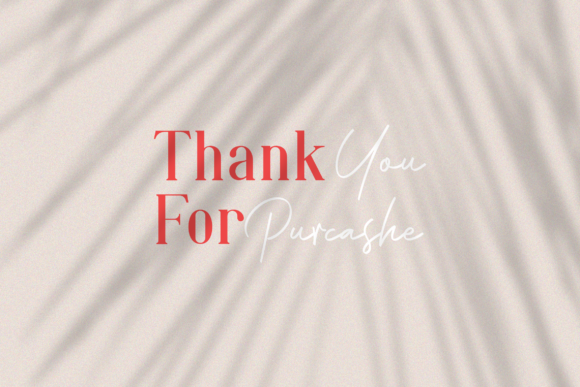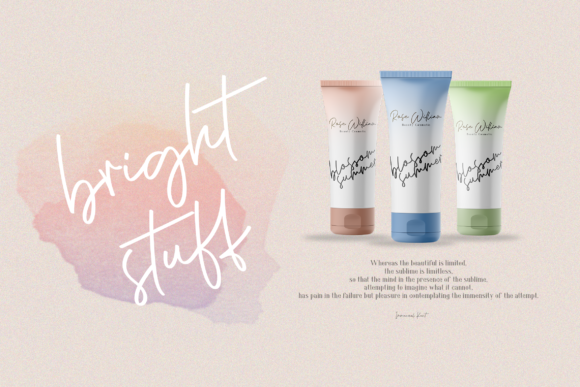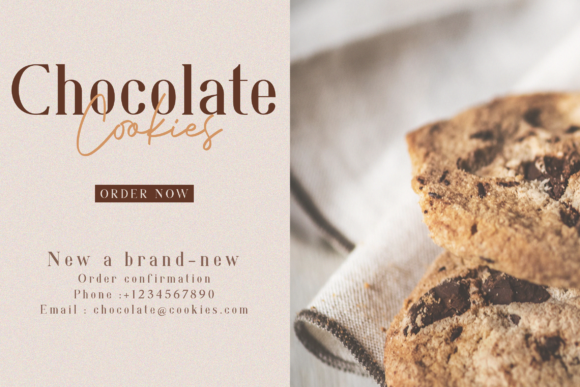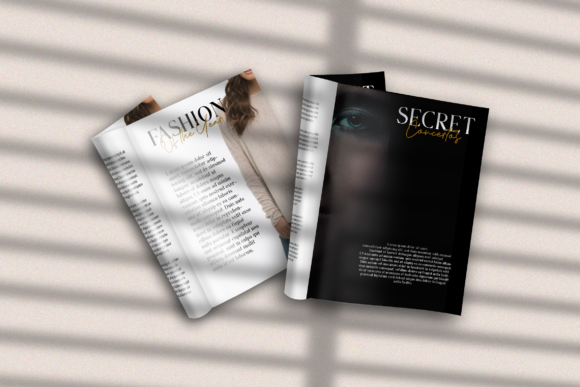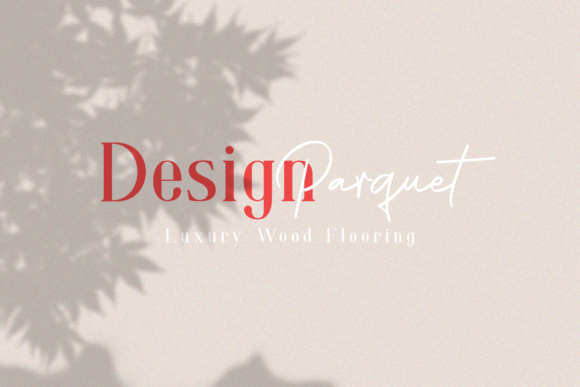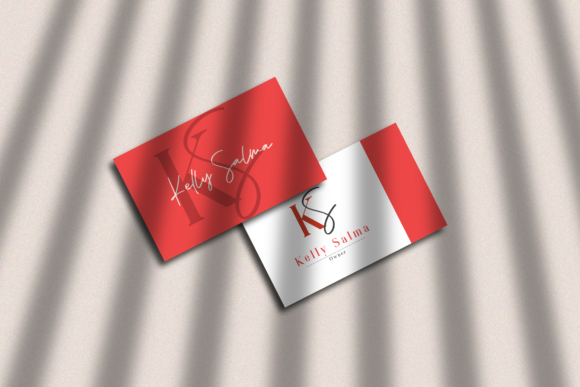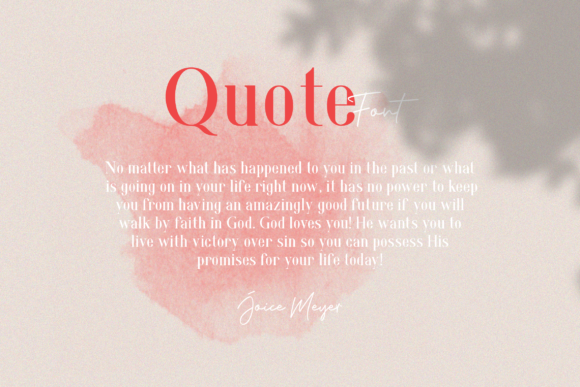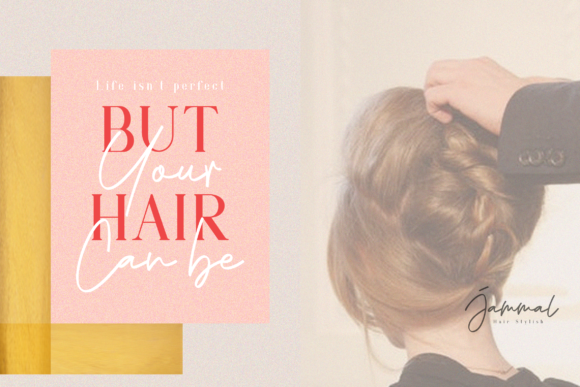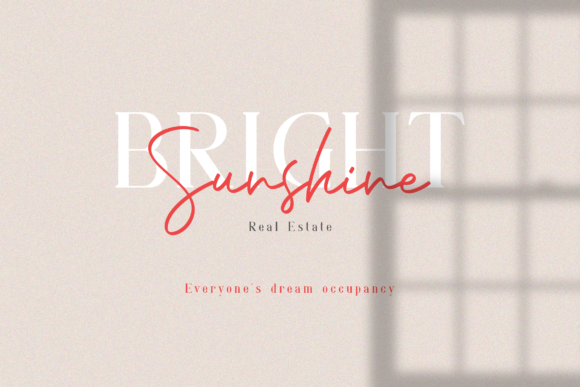
Phillips Muler Font
About Phillips Muler Font
Phillips Muler is an elegant font duo that is perfect for all your design project needs. Get inspired by its classy appearance!